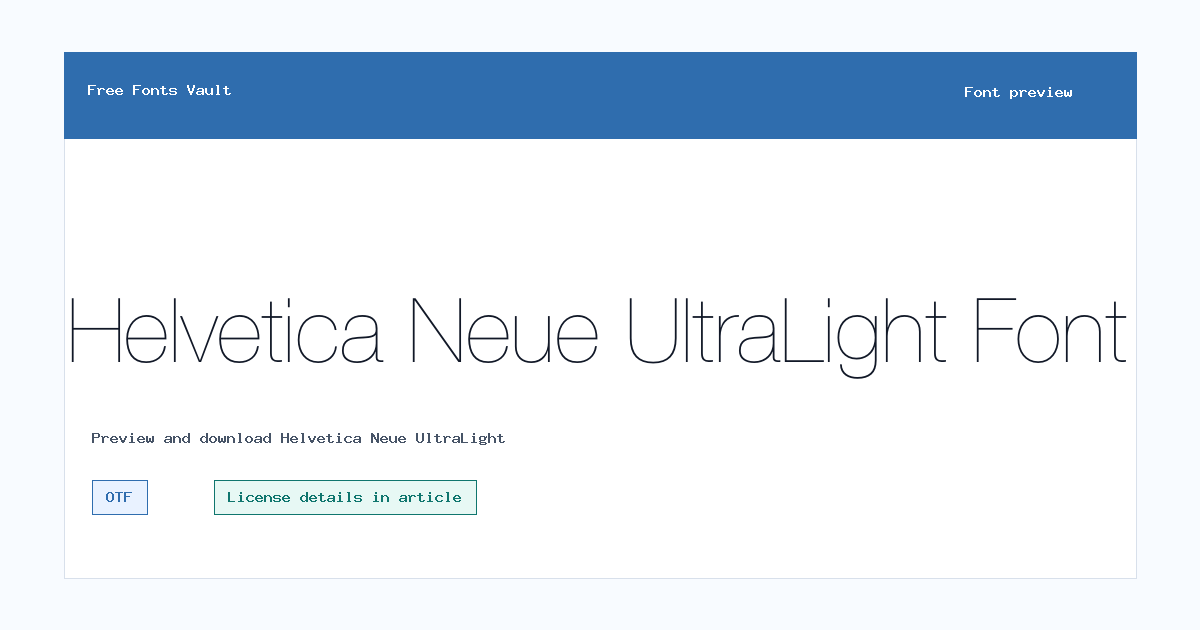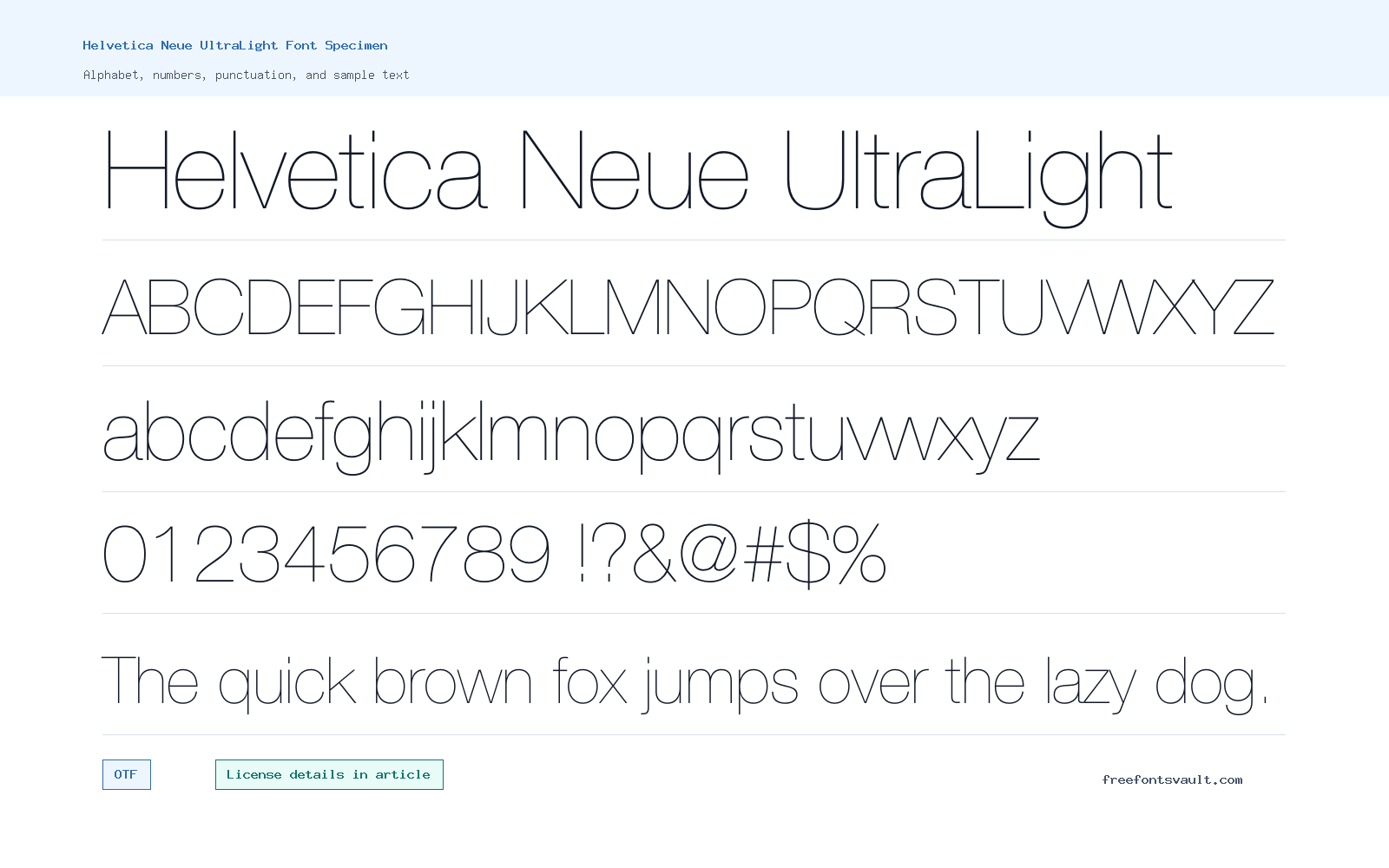
Helvetica Neue UltraLight
Helvetica Neue UltraLight font.
Helvetica Neue UltraLight is a very light, clean sans serif style with thin strokes and a restrained look. It works best when you want text to feel simple, airy, and modern without adding decorative detail.
About Helvetica Neue UltraLight
Helvetica Neue UltraLight uses an ultra-light visual approach, so the letterforms feel open and quiet rather than bold or expressive. The available font file is an OTF file, with the style marked as normal and the weight listed as 300. That makes it better suited to display settings than heavy text blocks. Try it in short headings, hero text, elegant labels, menu items, or minimal poster-style layouts where spacing and contrast can be controlled.
Because the strokes are thin, test the font carefully before using it in small sizes. Ultra-light fonts can lose clarity on low-resolution screens, busy backgrounds, or pale color combinations. For best results, use generous letter spacing, strong contrast, and enough font size for the shapes to stay readable. Pair it with a sturdier sans serif or a readable serif for body copy so longer paragraphs remain comfortable to read.
For brand-style mockups, preview the same word in black, gray, and your intended brand color. Very light fonts can look refined in one color and too faint in another, so contrast testing matters more than with heavier cuts.
- Light 300-weight appearance suited to clean display typography
- Minimal headings, hero titles, and clean landing-page text
- Elegant labels, short quotes, portfolio covers, and simple poster layouts
Use the preview tool to test your own words at both large and small sizes. Pay close attention to thin strokes, spacing, and contrast, especially if the design will appear on mobile screens or over images. Avoid placing this ultra-light style over photos unless the background is calm and contrast remains high.
Is Helvetica Neue UltraLight good for body text?
It is better for short display text. The thin strokes may become hard to read in long paragraphs or small sizes.